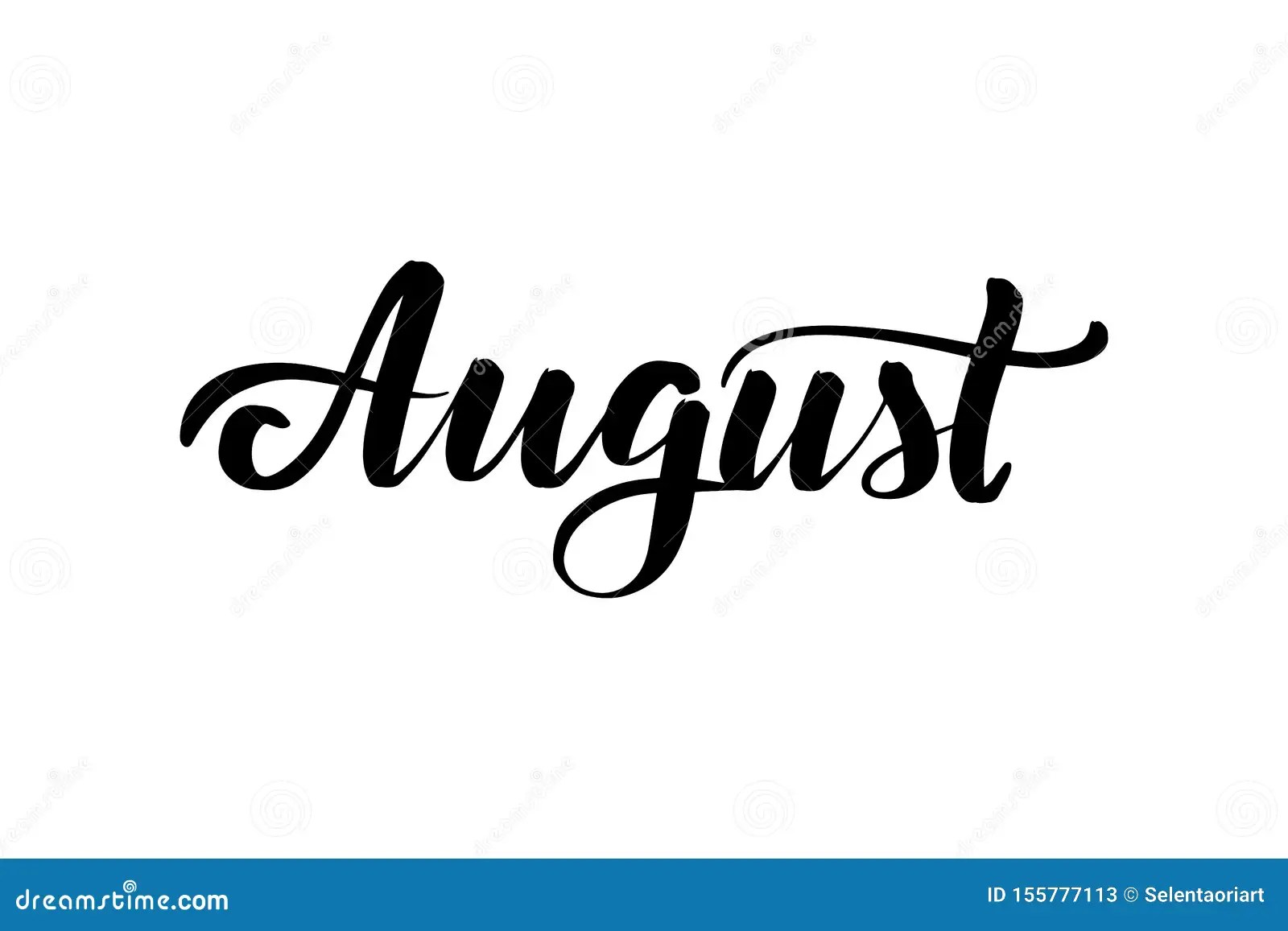
August: Exploring Different Fonts
When it comes to August, many of us think of summer, warm days, and outdoor activities. But it also marks the beginning of a new school year, and with it, new projects and assignments. For any design-related tasks, you'll need to make sure your font choice is suitable and appropriate. With so many fonts to choose from, it can be overwhelming to pick the right one. Let's explore a few of the different fonts available for August projects.
Serif Fonts
Serif fonts, such as Times New Roman, are the oldest font style and are considered more traditional. They are also thought to be more formal and structured. Serif fonts can be used for magazine titles, newspapers, books, and other print materials. If you want to give your project a classic look, then Serif fonts are a great choice.
Sans Serif Fonts
Sans Serif fonts, such as Arial, are considered more modern and casual. They are easy to read and can be used for webpages, logos, and other digital materials. Sans Serif fonts are great if you want to add a contemporary look to your project.
Script Fonts
Script fonts, such as Edwardian Script, are more decorative and elegant. They are great for invitations and announcements, as well as logos and titles. Script fonts can be used to add a touch of class and sophistication to your project.
Display Fonts
Display fonts, such as Futura, are bold and eye-catching. They are perfect for posters, advertisements, and other display materials. If you want to make a statement with your project, then Display fonts are the way to go.
When it comes to fonts, there are so many options to choose from. Whether you're looking for something traditional or modern, there is something for everyone. Serif, Sans Serif, Script, and Display fonts all have their own unique characteristics that can be used to enhance a project. So, when it comes to August projects, make sure to explore all your options and find the font that is perfect for your project.